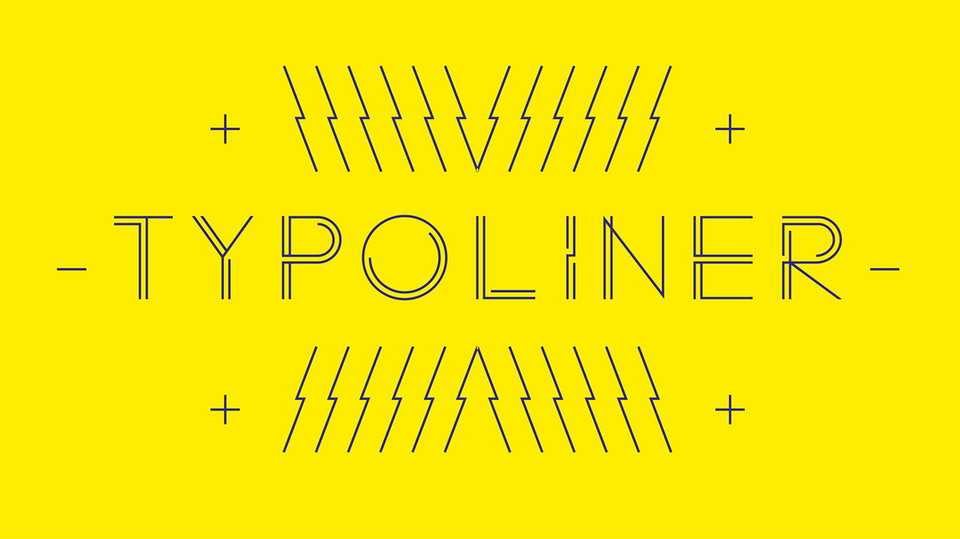
Download Typoliner font, a creative geometric typeface with unique look created from the lines. Great for logos, branding, headplines and posters, prints and other artworks.
Designer: Raphaël Wittmann